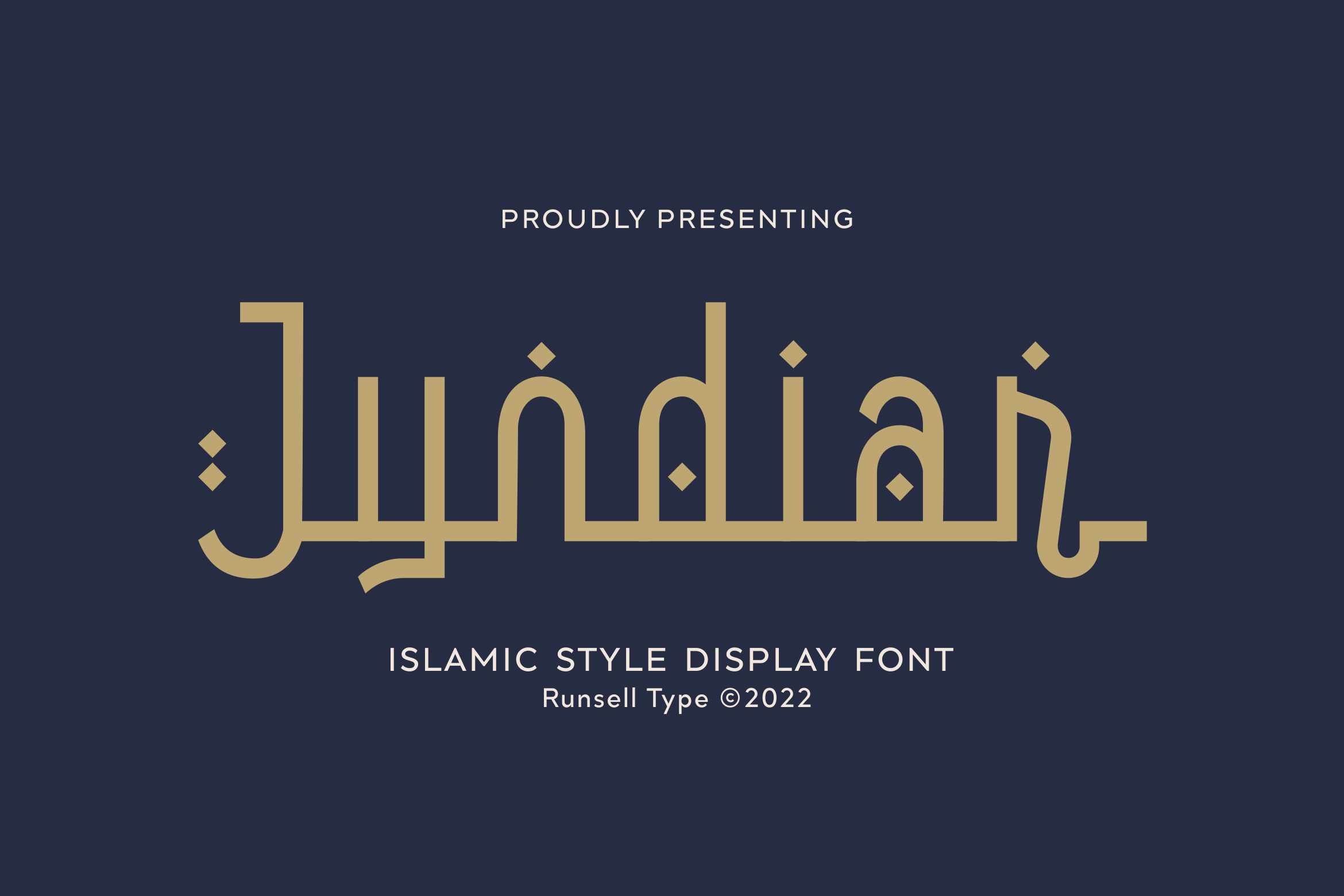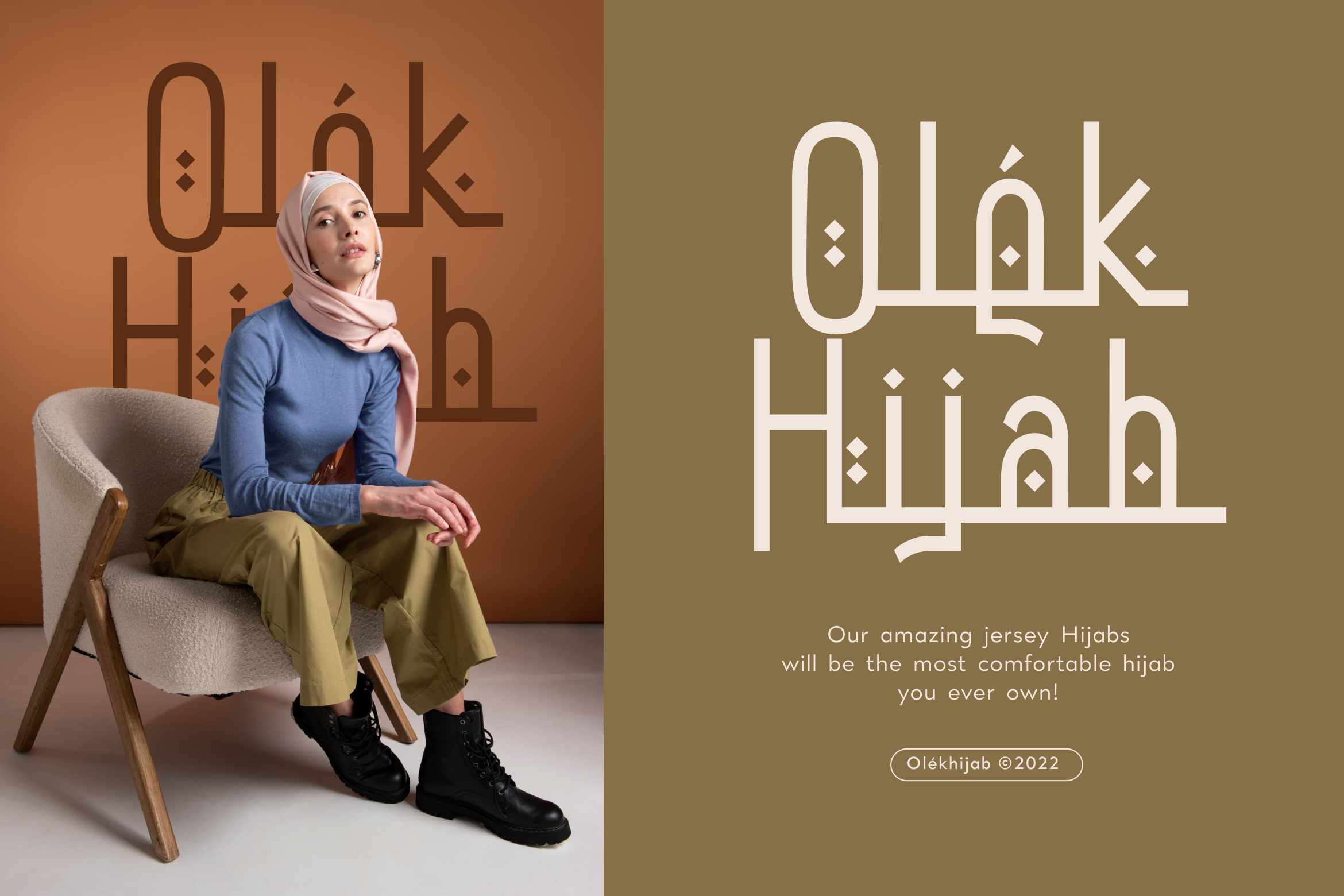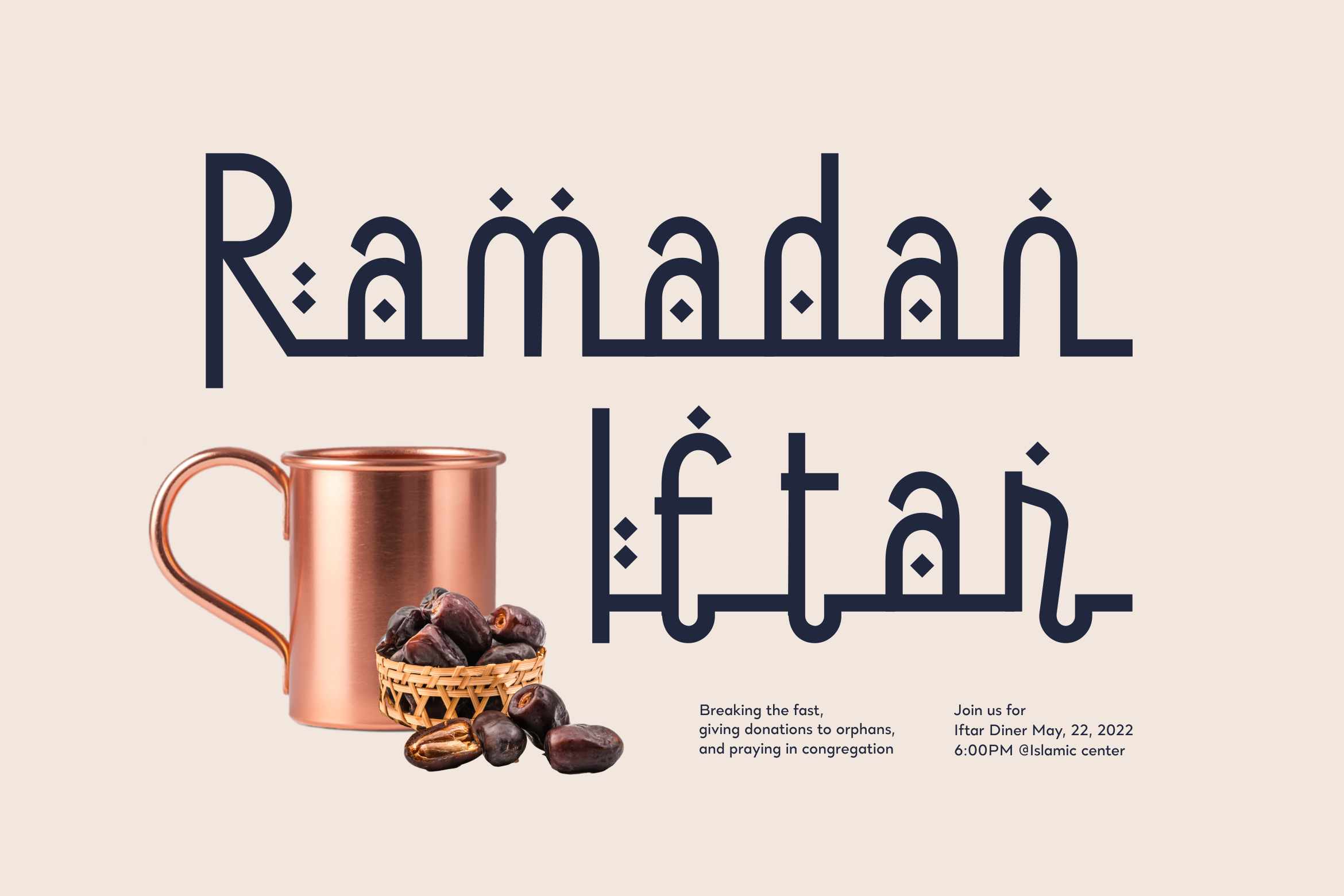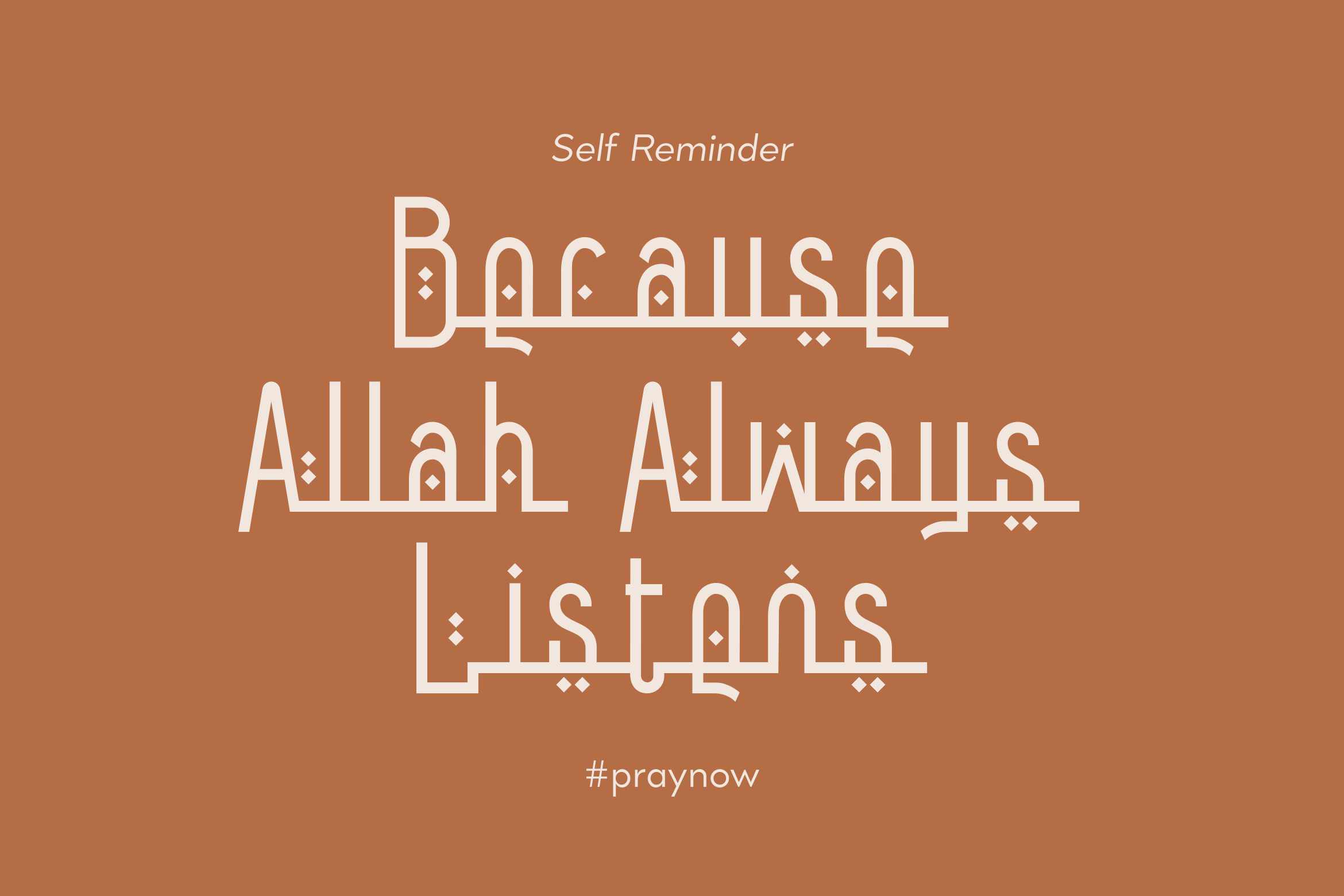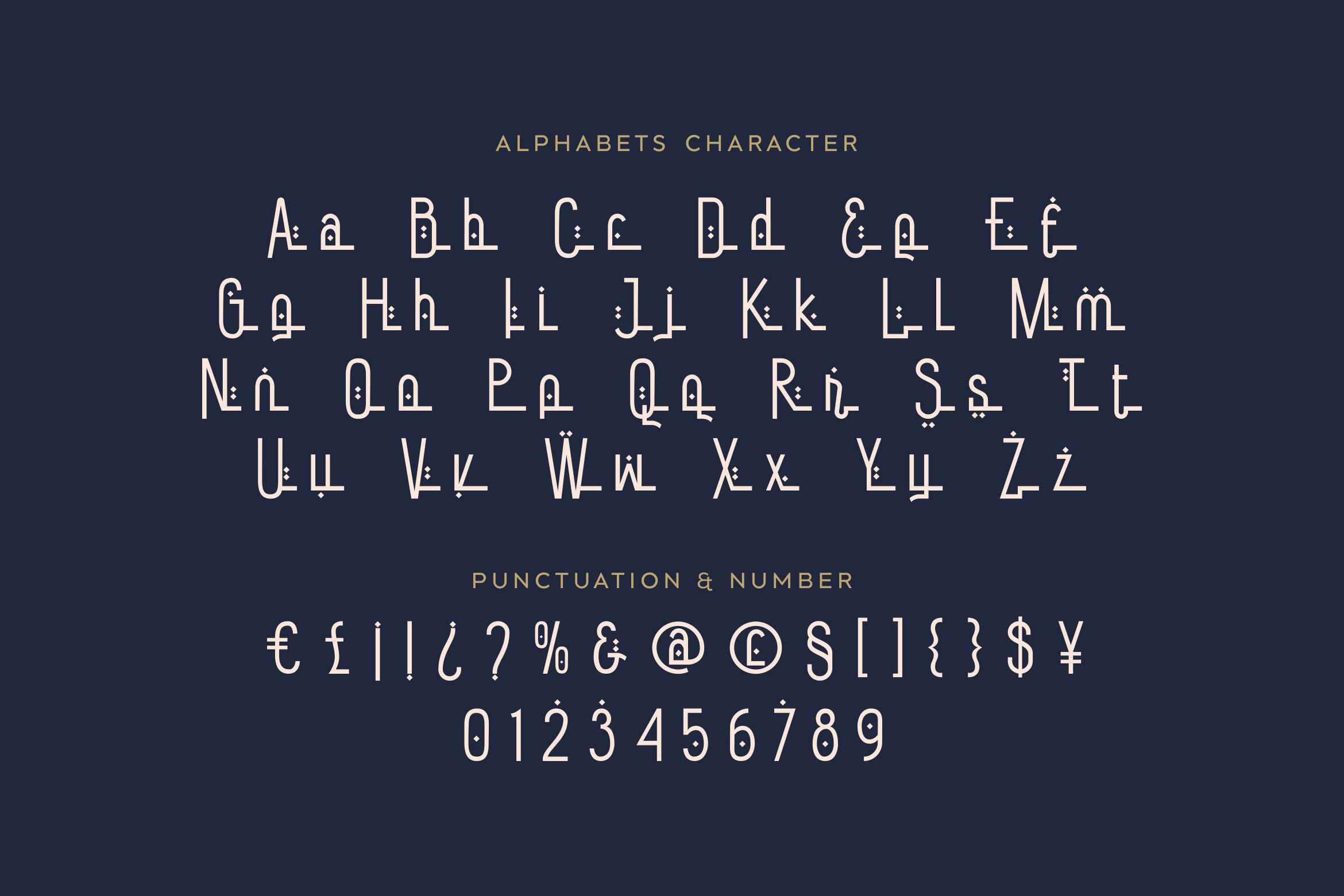
Jyndiar
Jyndiar is a modern Islamic-style display font that blends the geometry of kufic calligraphy with contemporary minimalism. Its unique baseline alignment, extended horizontal strokes, and ornamental dots create a visually structured appearance that is both elegant and architectural. Jyndiar is ideal for branding, editorial titles, fashion packaging, and promotional materials where cultural depth meets modern graphic design.
With a full character set, including multilingual support and refined punctuation, Jyndiar empowers designers to create headlines and statements that are rich in identity. Its stylized forms are particularly well-suited for use in Ramadan campaigns, Middle Eastern-inspired fashion labels, or religious events, offering a bold yet respectful tone.